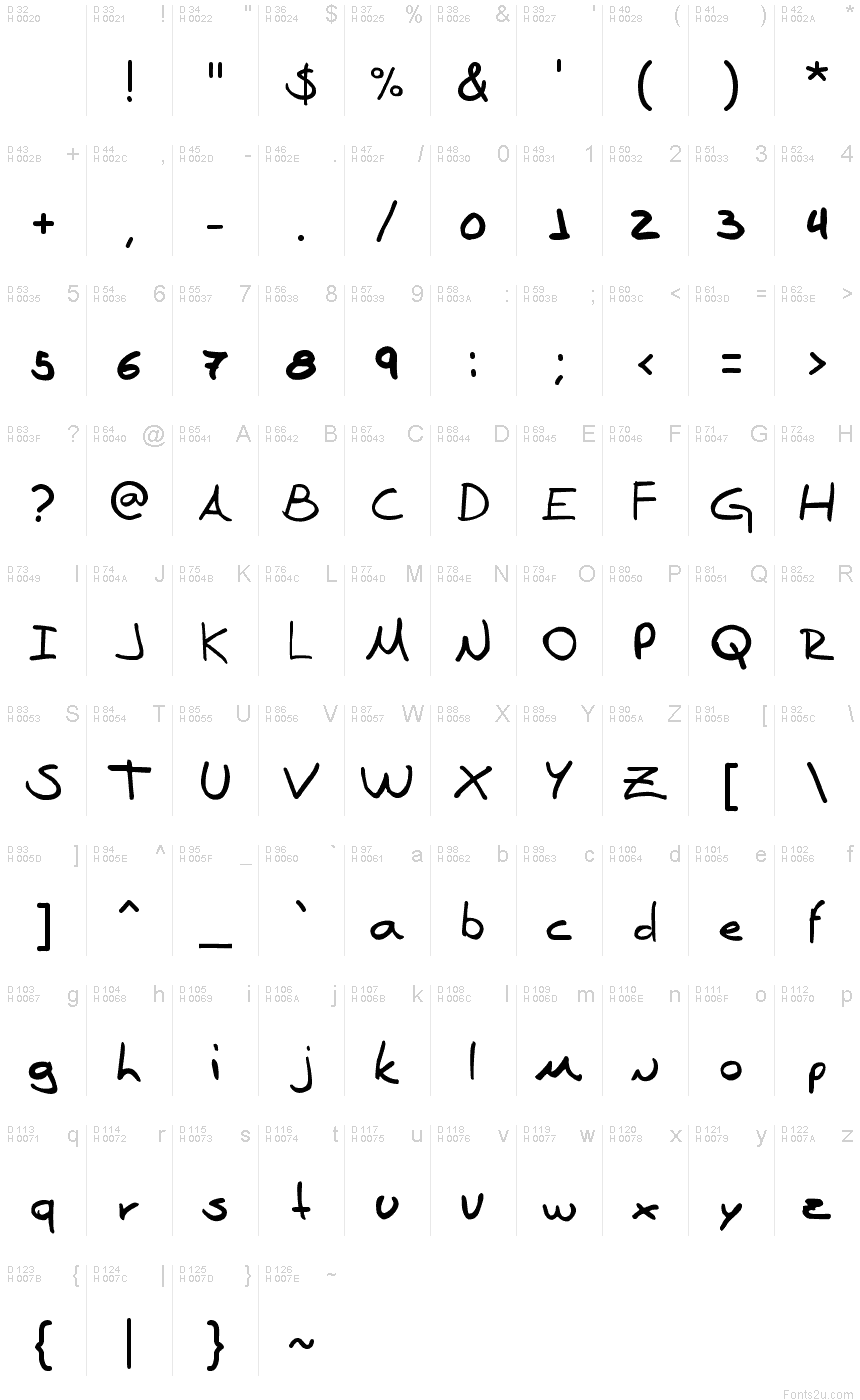
Denise Sans
Denise Sans font is a free casual handwritten font with a loose, inky rhythm that feels like a quick note from a friend. The letters are rounded and slightly bouncy, with smooth curves and just enough irregularity to feel human while staying easy to read at a glance. It’s the kind of handwriting that looks spontaneous, not sloppy, giving your layouts a warm, approachable voice.
Using Denise Sans, you can bring personality to social media quotes, kids’ book titles, handmade product labels, planner pages, classroom printables, and friendly brand logos. This free font holds up nicely at medium to large sizes, where its playful curves really show. For longer supporting text, pair Denise Sans with a clean sans serif so your message stays clear while the handwriting does the charming.